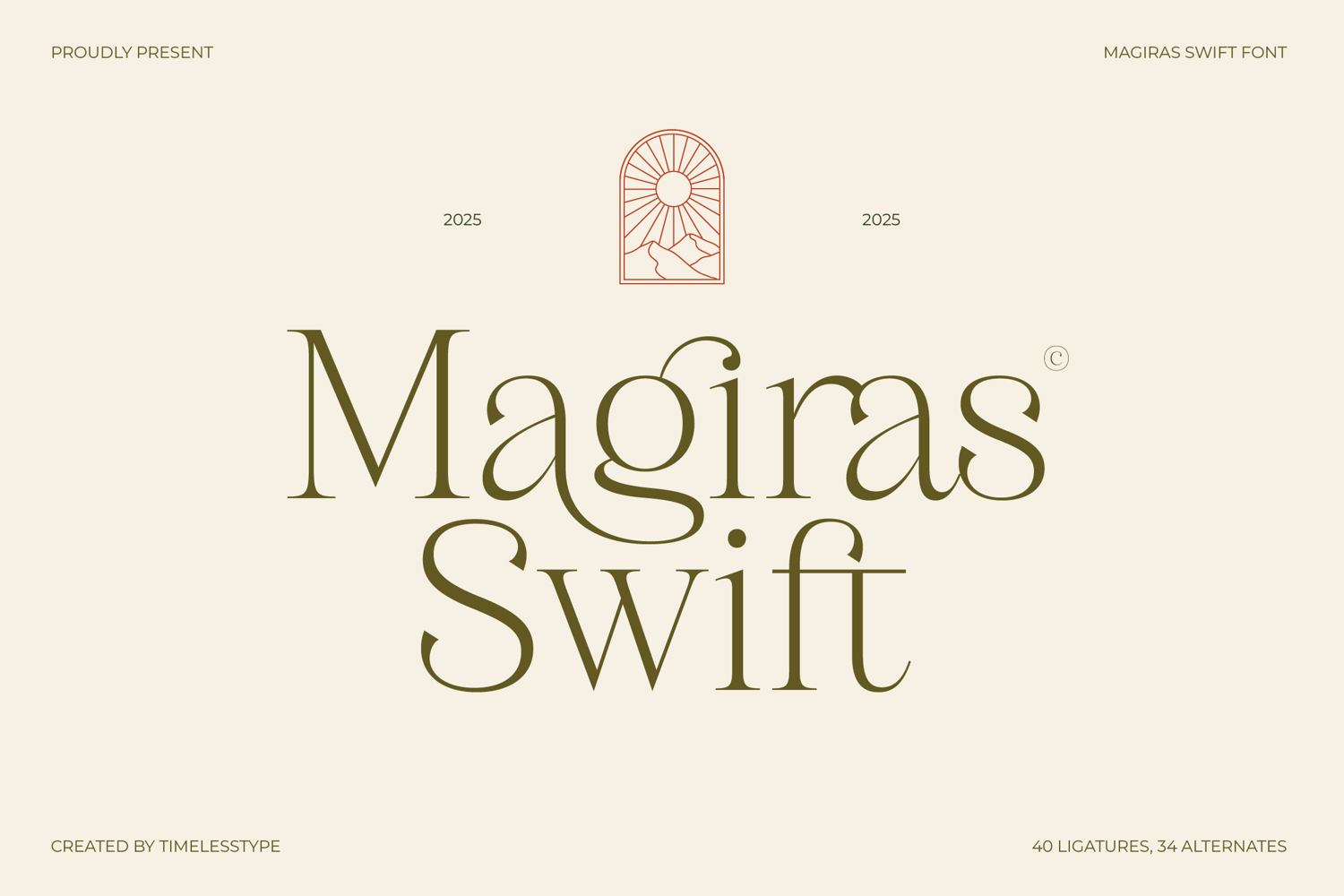
Magiras Swift - Elegant Display Serif
Magiras Swift
Magiras Swift Italic
Unleash a wave of unapologetic elegance with Magiras Swift, a display serif that moves with the grace of a calligrapher's hand. This font is a breathtaking dance of high-contrast strokes and sinuous curves, where timeless tradition meets modern rebellion. Every letter is crafted to exude a sophisticated yet spirited energy, giving your words an unforgettable personality and a voice that demands to be heard. Magiras Swift isn’t just a font; it's a statement of pure, refined style.